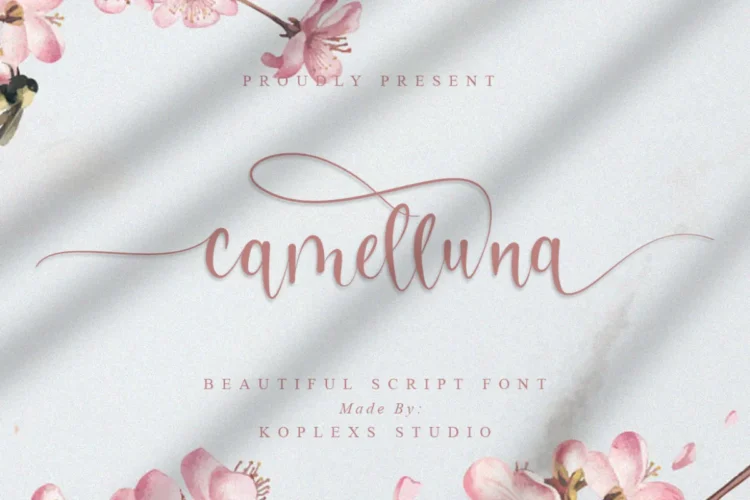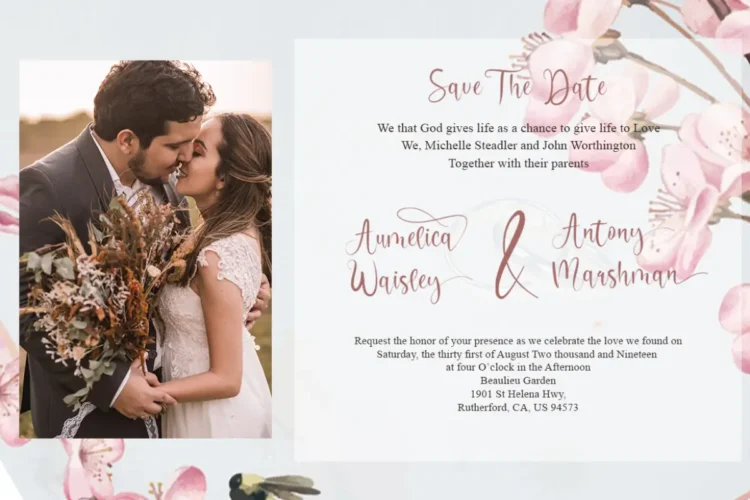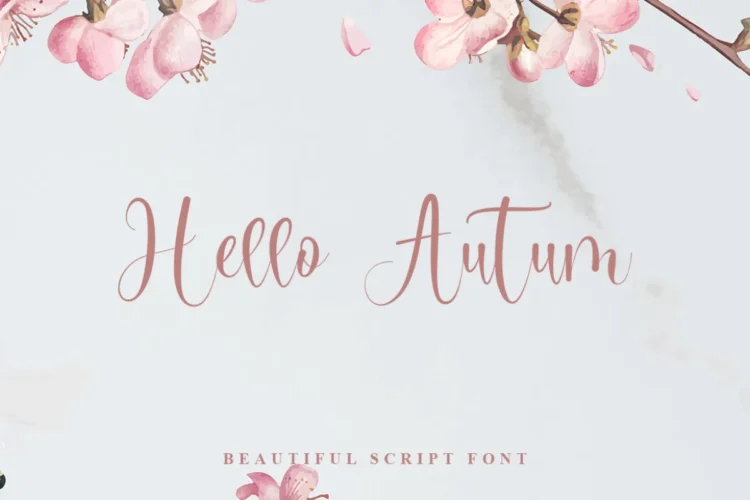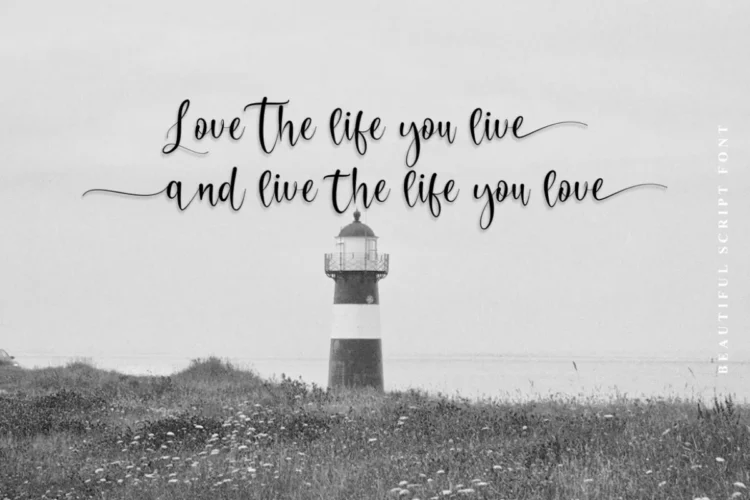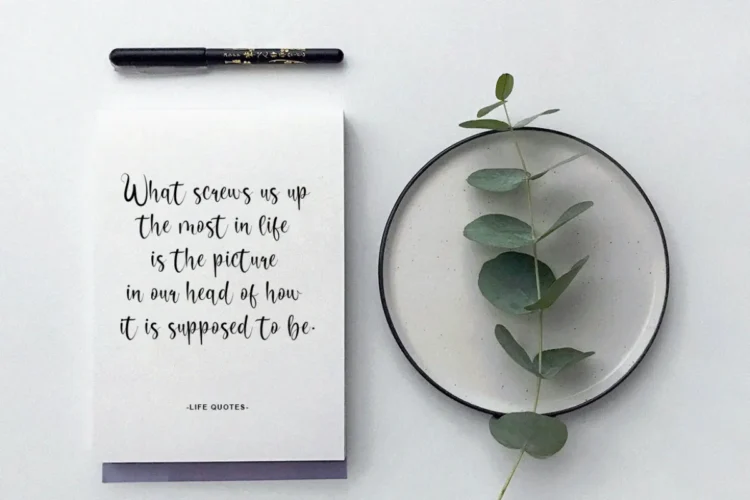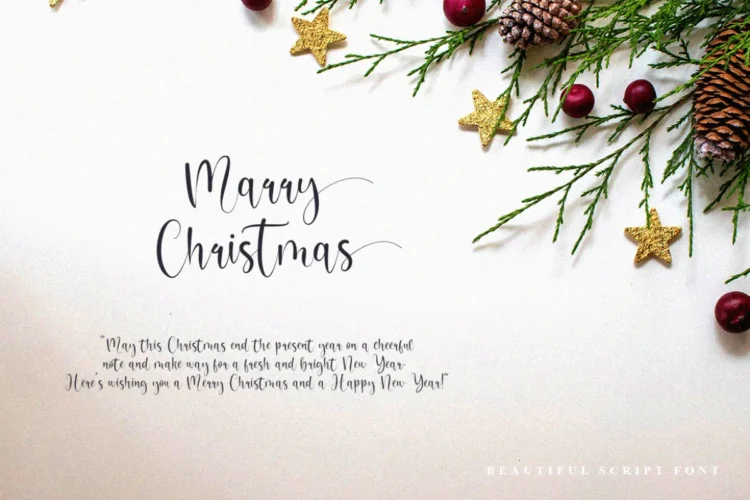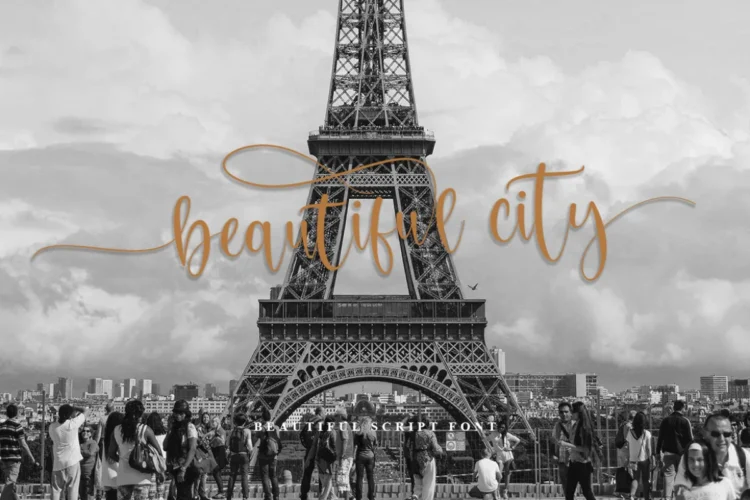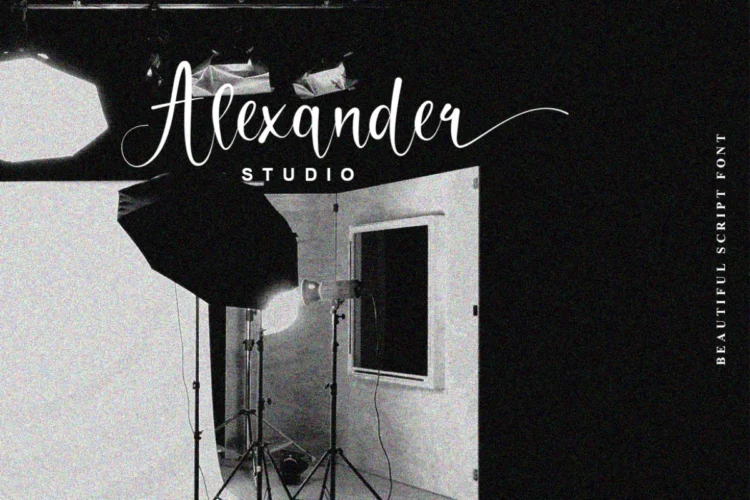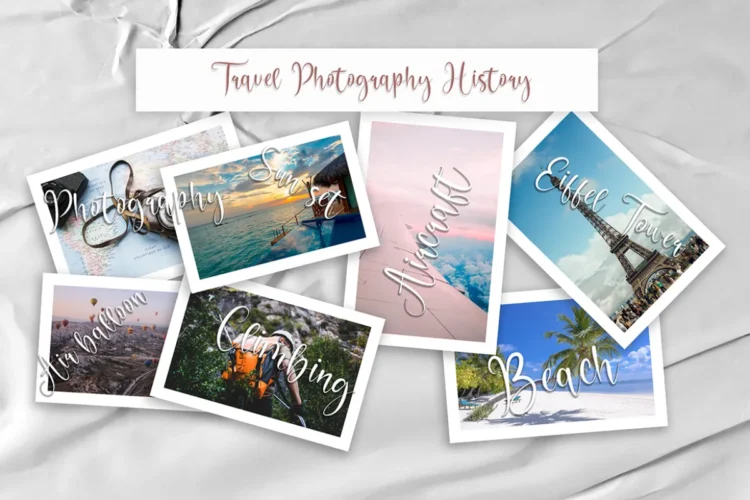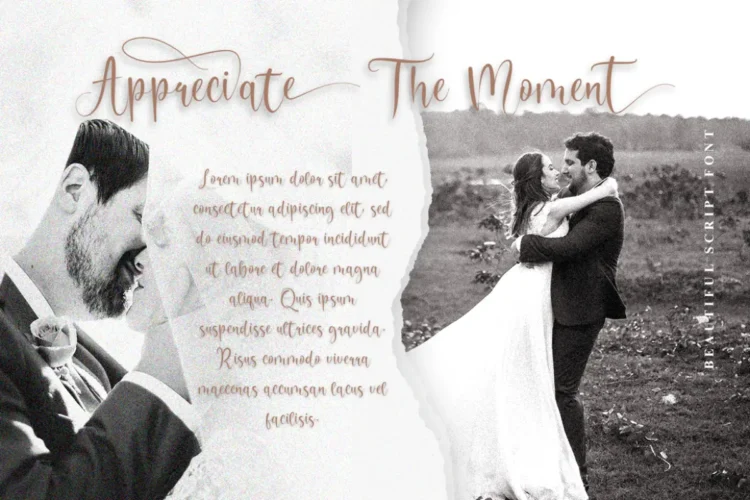
Camelluna Font – Elegant Handwritten Script for Wedding, Branding & Luxury Designs
Camelluna Font is a timeless Handwritten Font crafted with graceful strokes and a refined flow, making it the perfect choice for designers seeking elegance and charm. This versatile Script Font blends the beauty of calligraphy with modern aesthetics, ideal for projects that demand sophistication and personality.
Whether you’re designing for romance, fashion, or high-end branding, Camelluna delivers a touch of refinement. With its smooth curves and balanced letters, this Calligraphy Font brings harmony to every composition. Its versatility makes it a standout as a Wedding Font, Cosmetic Font, Aesthetic Font, Logo Font, and even a Luxury Font for exclusive brand identities.
Camelluna Font Included :
- Alternates
- Ligatures
Camelluna Font Perfect for :
Camelluna Font is ideal for:
- Wedding invitations & save-the-date cards
- Logo & branding design for premium businesses
- Fashion & cosmetic packaging
- Elegant website headers & social media graphics
- Posters, quotes, and editorial layouts
- Luxury products, jewelry & boutique branding
Features & Highlights
- Stylish handwritten style with modern curves
- Works beautifully as a Wedding Font for invitations & stationery
- Ideal Branding Font for logos, packaging & identity systems
- Refined Cosmetic Font for beauty & fashion industries
- Trendy Aesthetic Font for social media, quotes & digital art
- Elegant Calligraphy Font for certificates, greeting cards & posters
- Adaptable to both modern fonts and classic luxury projects
With its elegant font style and luxurious feel, Camelluna gives every project a signature look that resonates with timeless beauty.